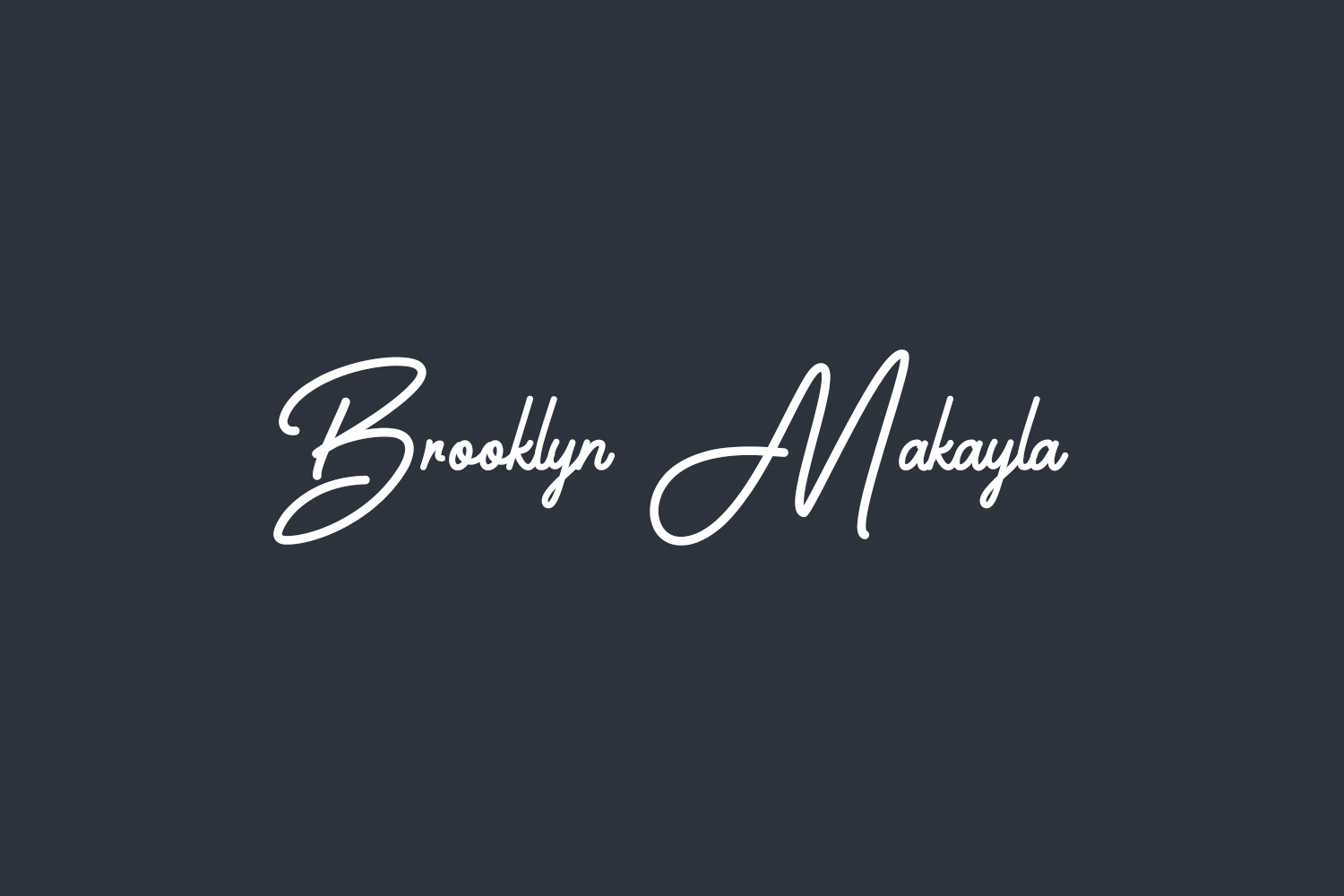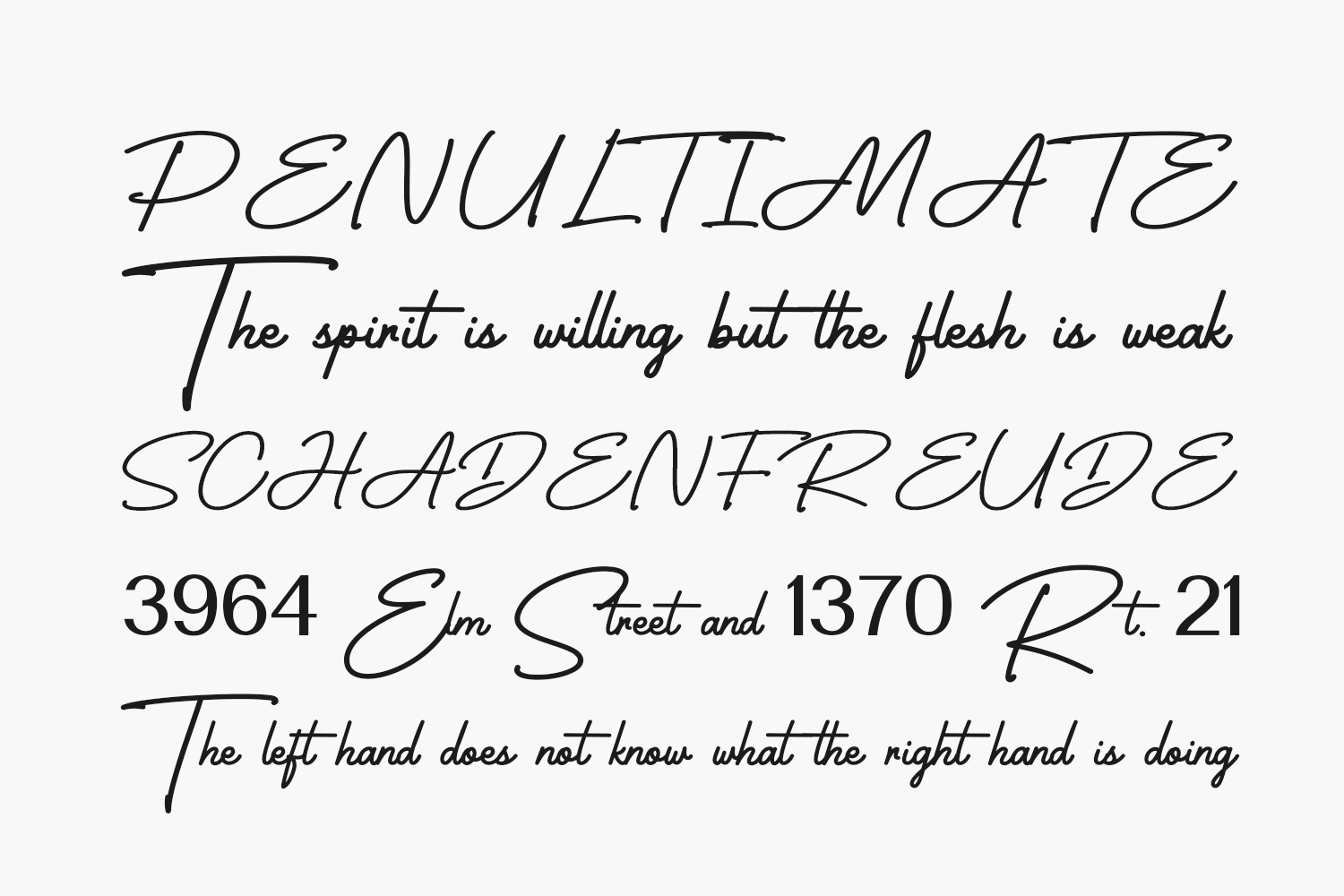
Brooklyn Makayla Free Font is a delicate and well balanced script font. It is suitable for logos, stationery art, quotes, book covers, magazines, branding, and much more. Add it to your most unique ideas to make them stand out. Brooklyn Makayla Free Font was designed by Kotak Kuning Studio is a demo and free for personal use only. Please purchase the full version for commercial use.